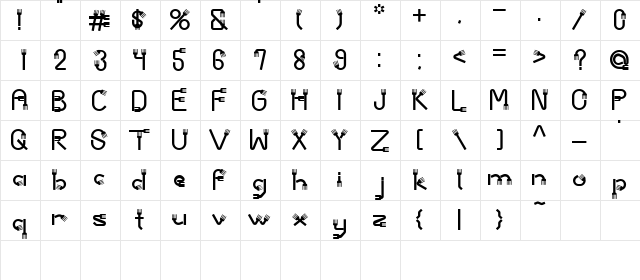
AC2-Forks Regular
Design Context for AC2-Forks Typeface
AC2-Forks is a composed and adaptable typeface that performs quietly and consistently across a wide range of design contexts.